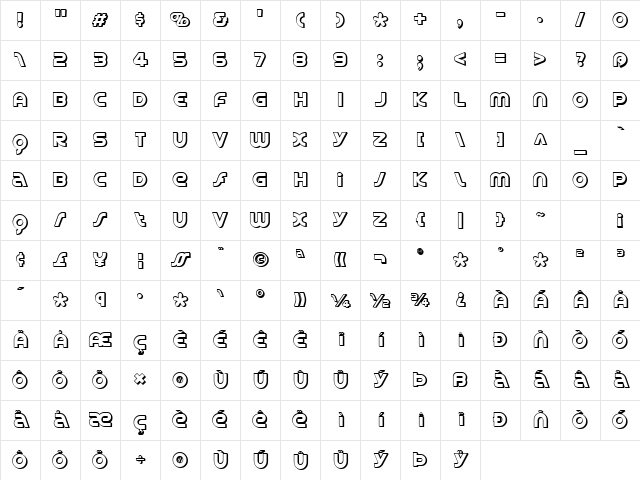
Complete Spin Cycle 3D Regular glyph index. Displaying only characters natively supported by Spin Cycle 3D Regular font.
Spin Cycle 3D is a composed and adaptable typeface that performs quietly and consistently across a wide range of design contexts.
Who designed the Spin Cycle 3D Regular font?